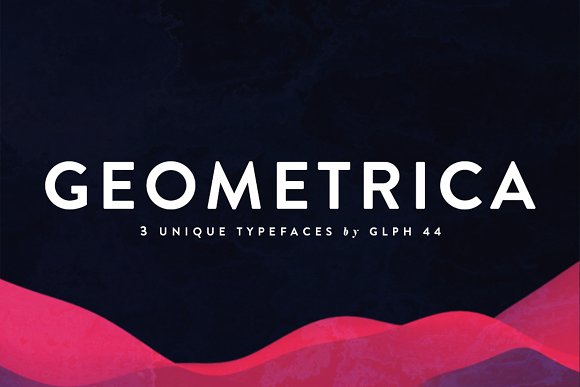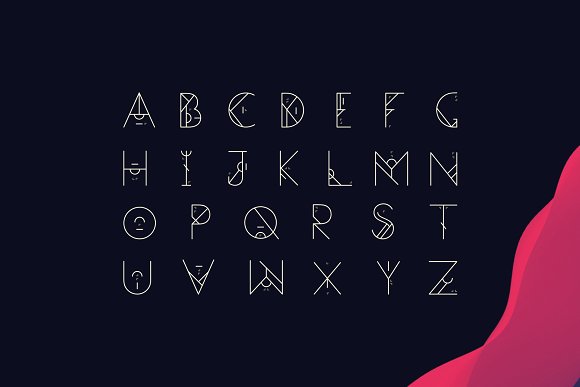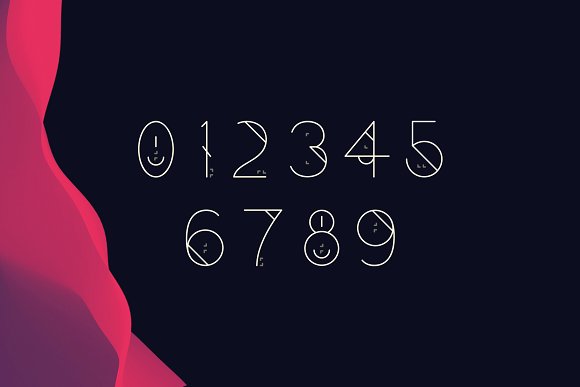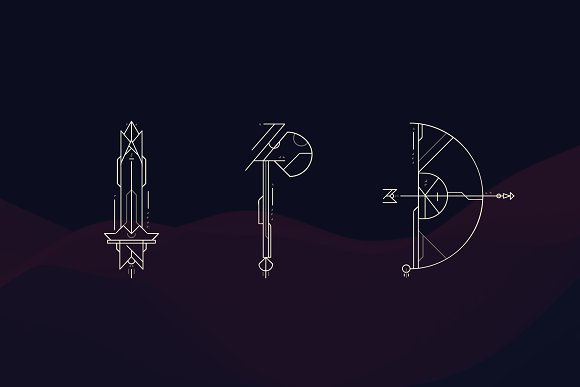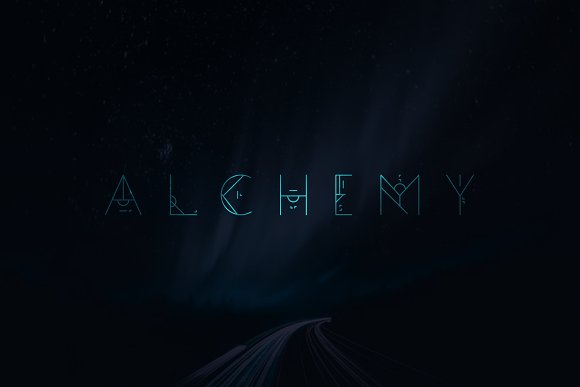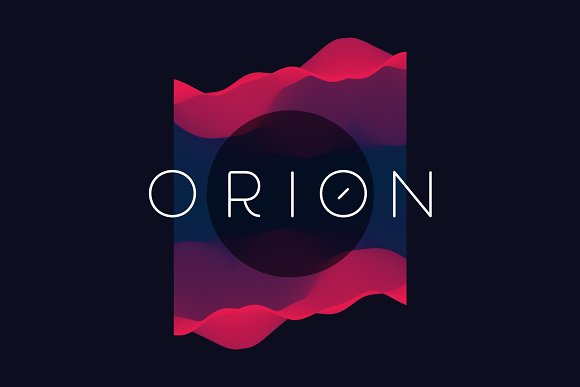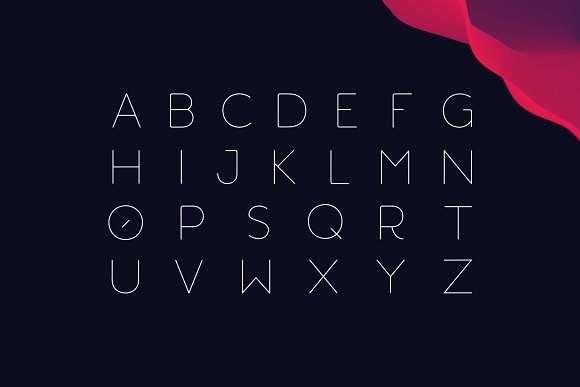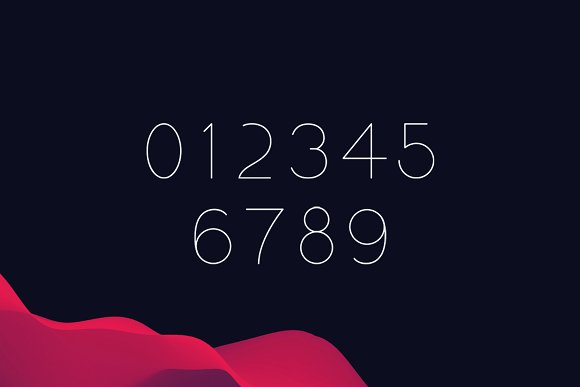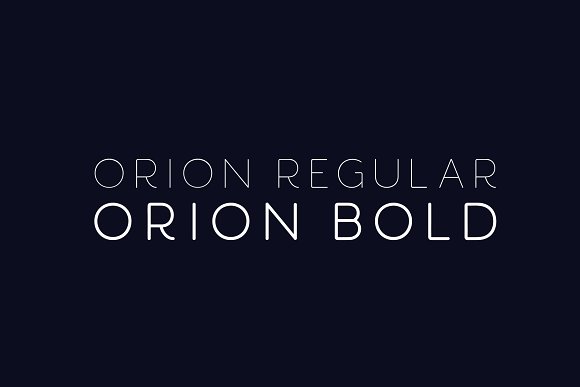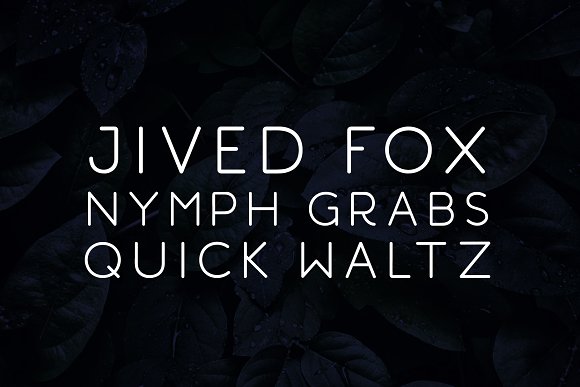
Geometrica | Font Bundle
Geometrica is a unique set of display fonts bundled for a limited time only!
All three fonts are designed with geometric forms and stylistic elements; ideal for headlines, identity, short sentences, logos and more.